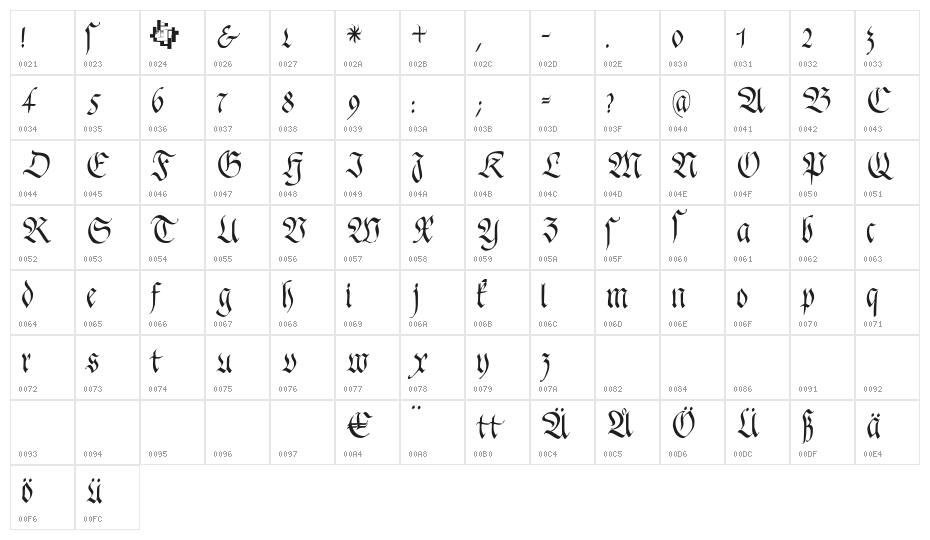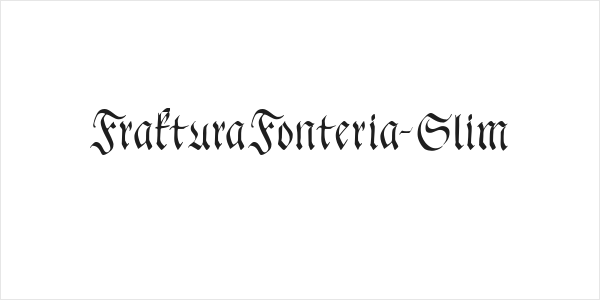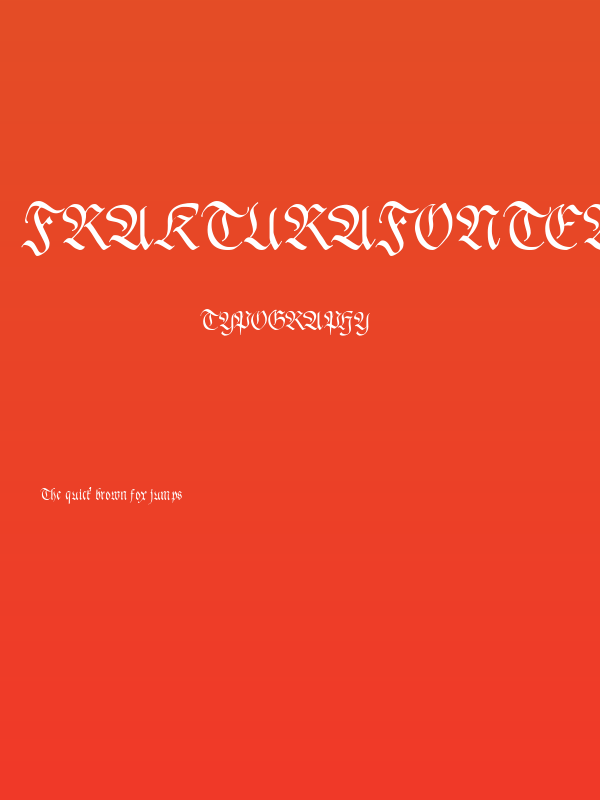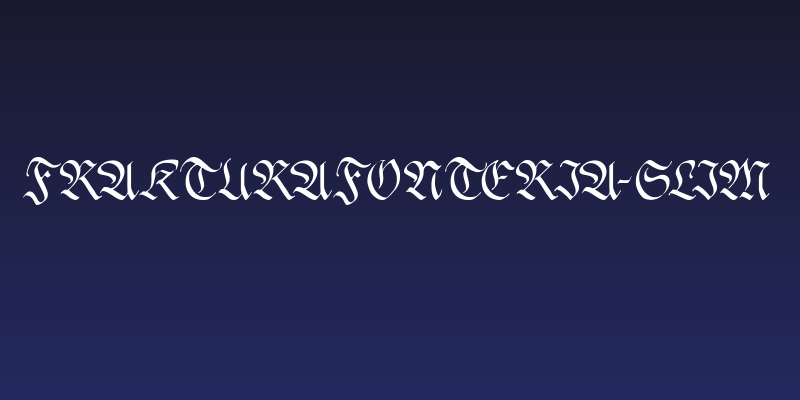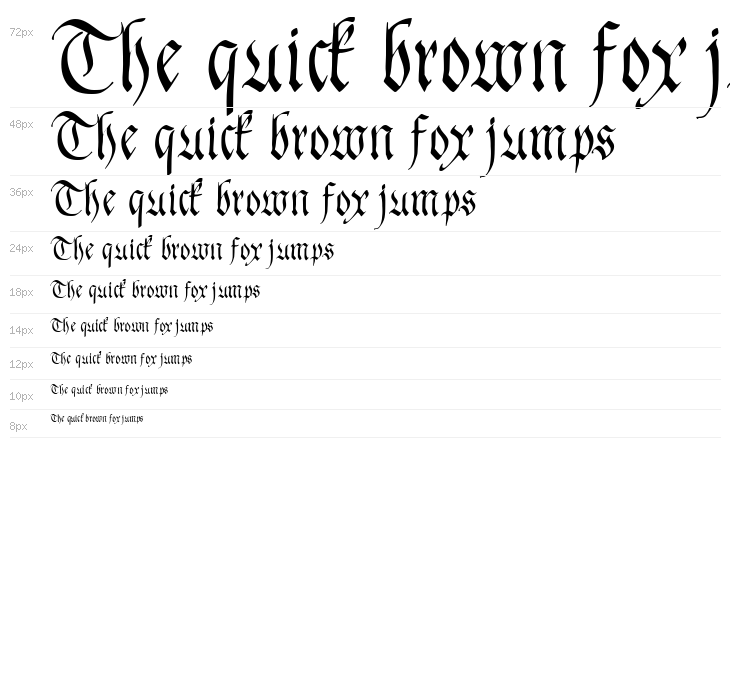
FrakturaFonteria-Slim Font
FrakturaFonteria-Slim Description
This font features a classic blackletter style with intricate and sharp edges, reminiscent of traditional Gothic script. The uppercase letters are ornate, with elaborate flourishes and a strong vertical emphasis. The lowercase letters maintain a consistent style, with angular forms and a slightly condensed appearance. Numbers are styled to match the overall aesthetic, featuring similar sharp angles and decorative elements. Special characters are uniquely designed, adding to the font's historical and decorative appeal. The overall appearance is bold and striking, making it suitable for projects that require a touch of elegance and tradition.
| Proposed Projects | Ideal for historical documents, wedding invitations, certificates, book covers, and branding that requires a traditional or medieval touch. |